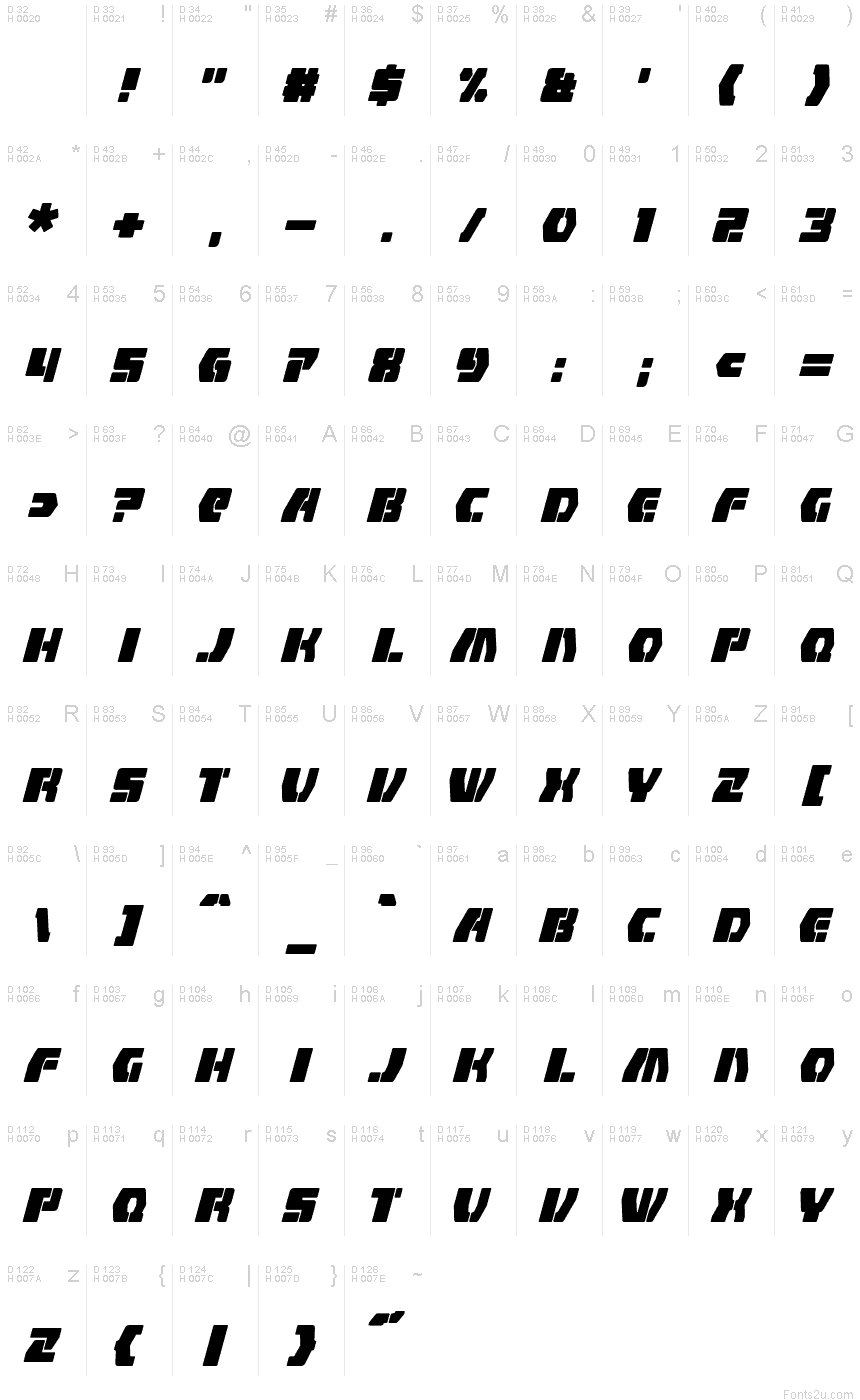
Counterfire Italic
Counterfire is a bold, heavy-weight science-fiction based font based on 'artistic styles' of the late 1970s-1980s period. Includes full alphabet, extended punctuation, euro. Includes italic set.